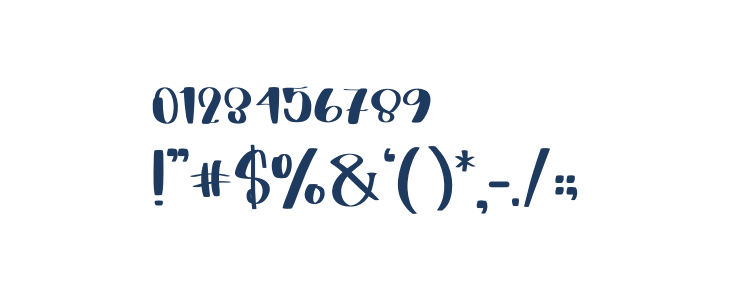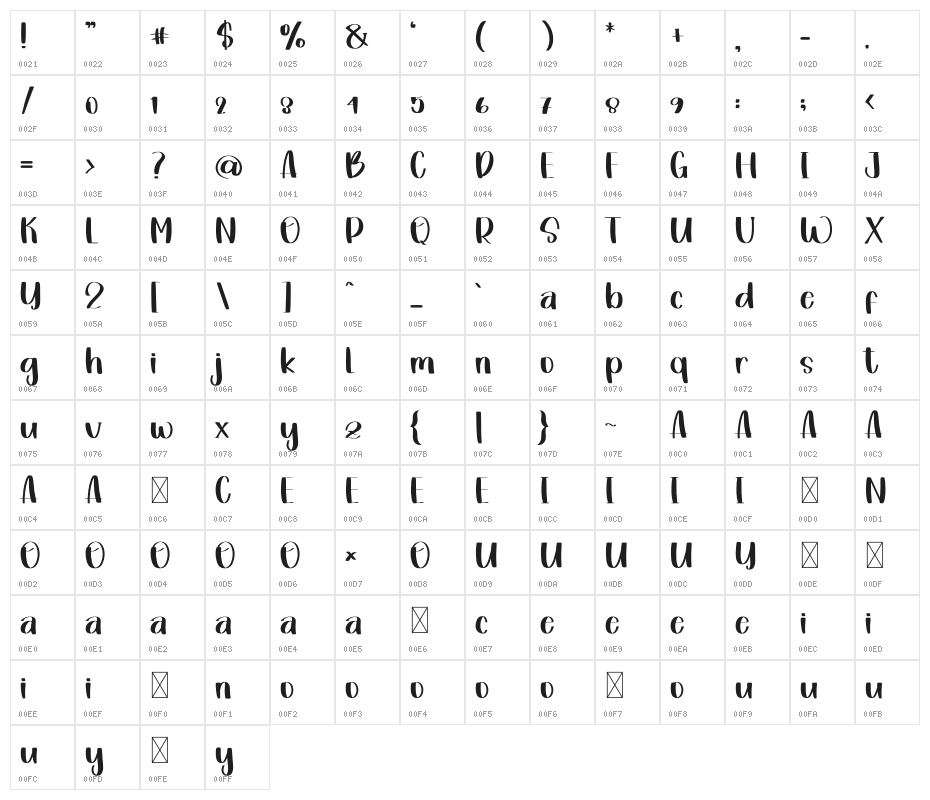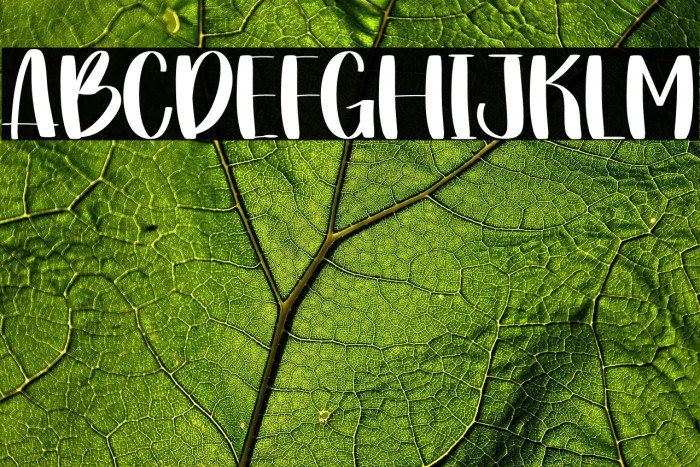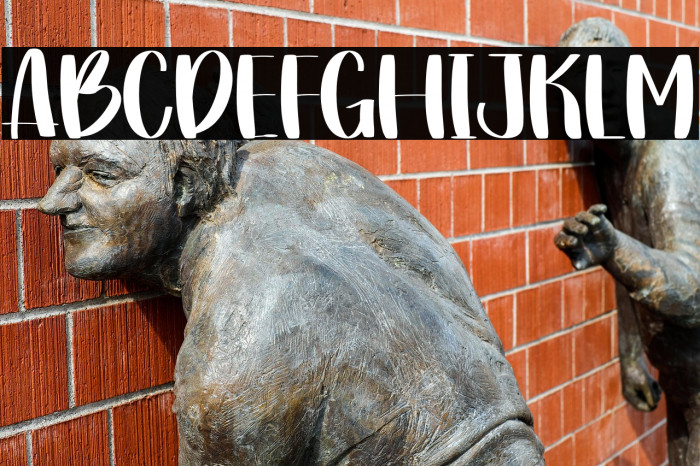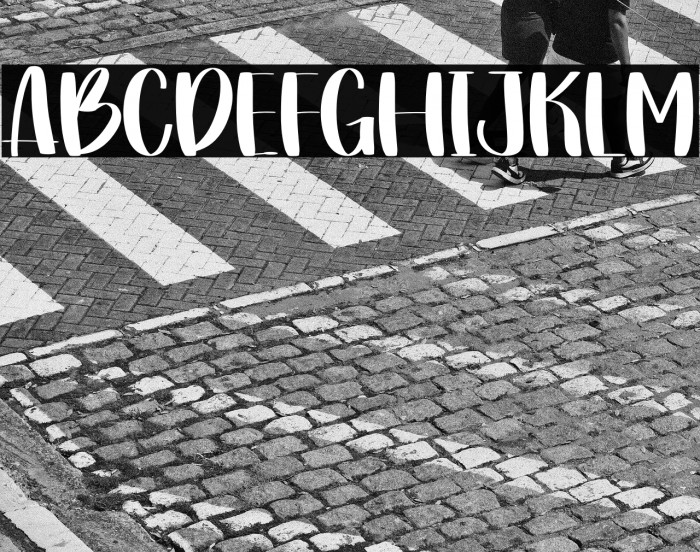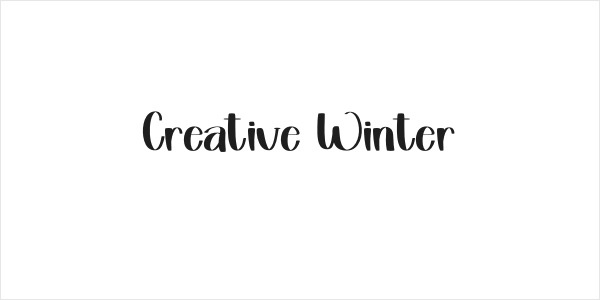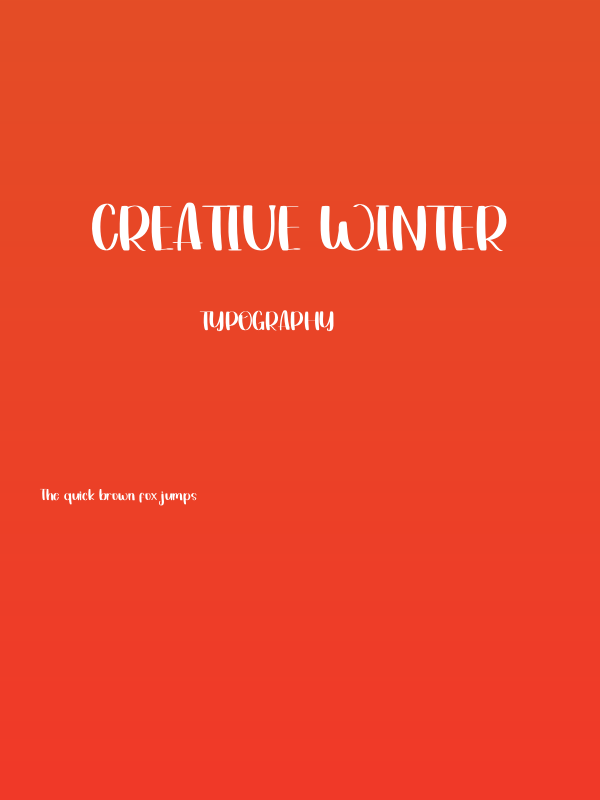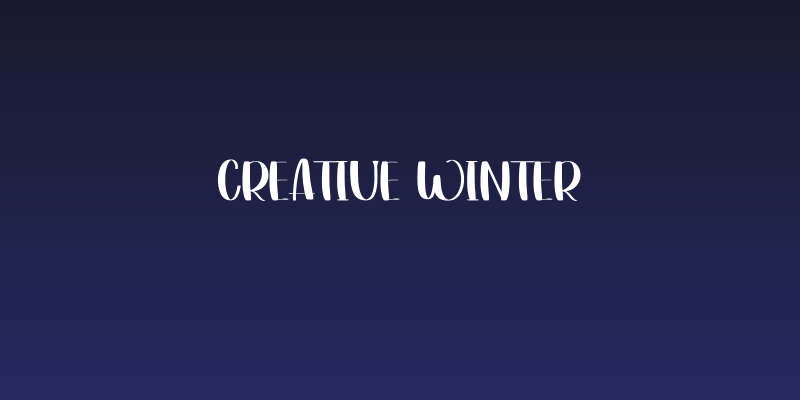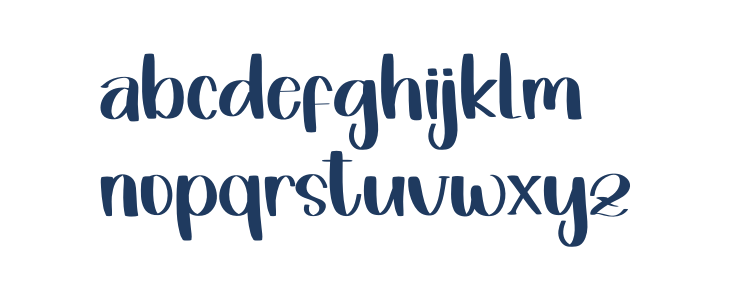
Creative Winter Font
Creative Winter Description
This font features a bold and playful script style with a handwritten feel. The characters are rounded and slightly slanted, giving a casual and friendly appearance. The uppercase letters are tall and expressive, while the lowercase letters maintain a consistent flow with smooth curves and loops. The numbers are equally bold and maintain the playful aesthetic. Special characters are creatively designed to match the overall style, making this font suitable for a variety of creative projects.
| Overall Style | Playful, Casual |
| Use Case | Logos, Headlines, Invitations |
| Proposed Projects | Ideal for greeting cards, invitations, logos, and playful branding projects. |